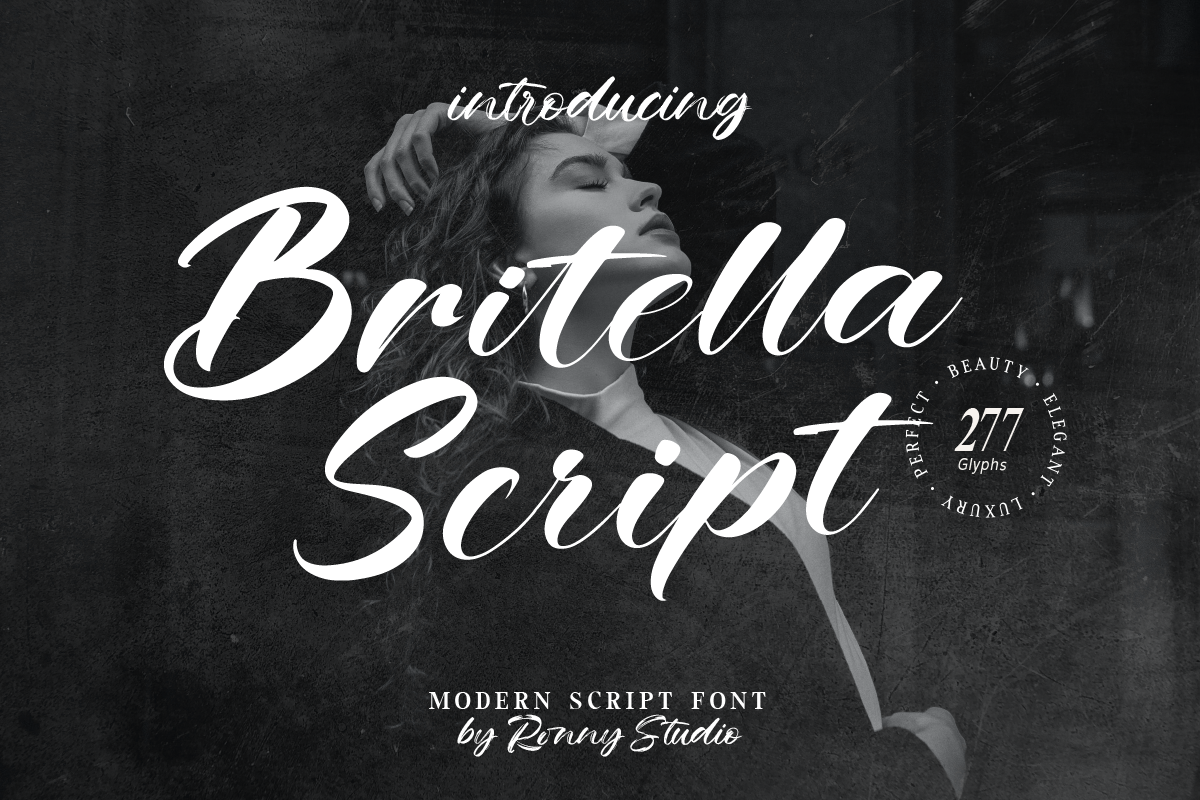
Britella Modern Script Font
Britella Script Font is created with a natural Modern script with a fresh modern script providing a stylish script guaranteed to add eye-catching appeal to your logo designs, brand imagery, quotes, product packaging, merchandise & social media posts